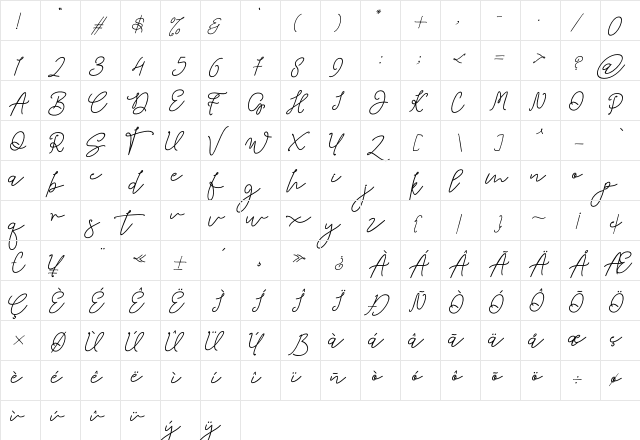
Wimter White Regular
Design Context for Wimter White Typeface
Wimter White is a composed and adaptable typeface that performs quietly and consistently across a wide range of design contexts.